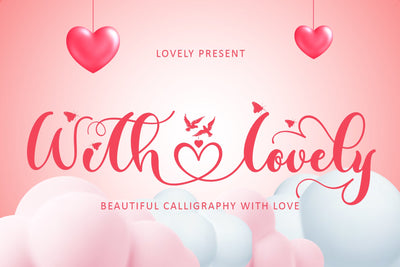
With Lovely
"With Lovely" is a very pretty script calligraphy font. This font has beautiful decorations in the form of love, birds, and there are also butterflies. This font is equipped with uppercase, lowercase, alternates, swash, titling, ligatures, numerals, punctuations, and also multilingual support. The embellishments on the font are very easy to apply, and there are also instructions for use in the preview. Very suitable for weddings, valentines, invitations, stickers, birthdays, Christmas, winter, easter and others.